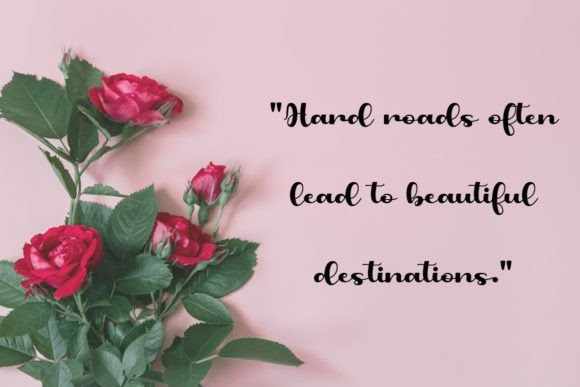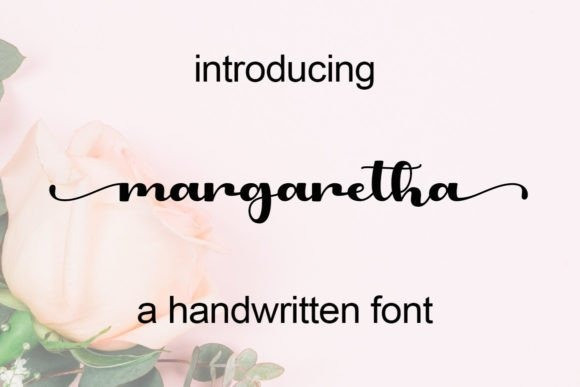
Margaretha Script Typeface
Margaretha Script Typeface is an enchanting handwritten font. This versatile typeface has a wide spectrum of applications, ranging from greeting cards to headlines. Photography is PUA encoded, which means you can access all of the glyphs and swashes with ease!